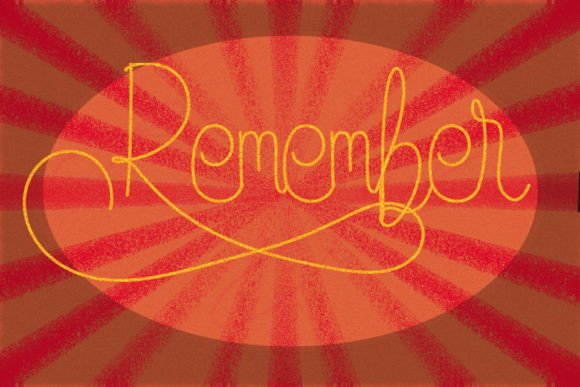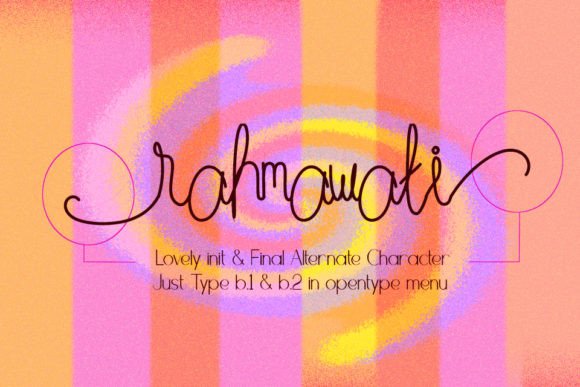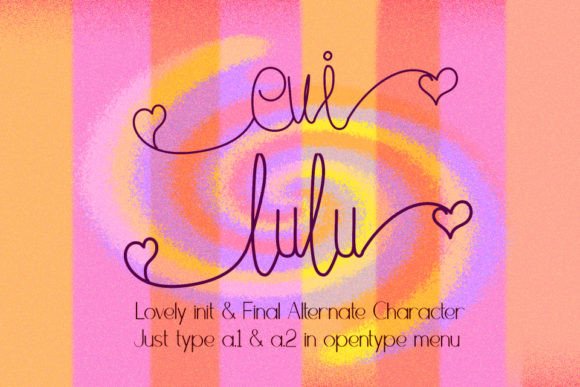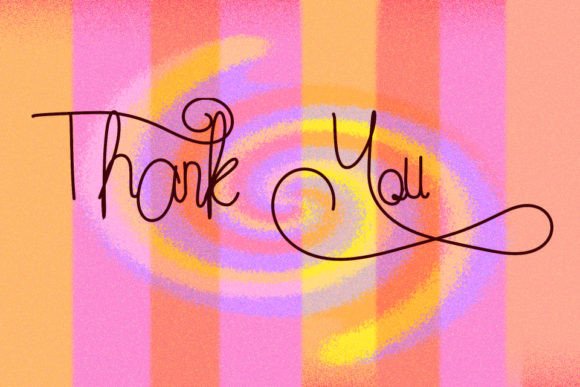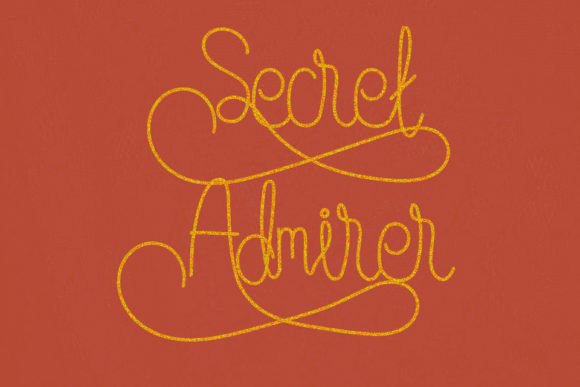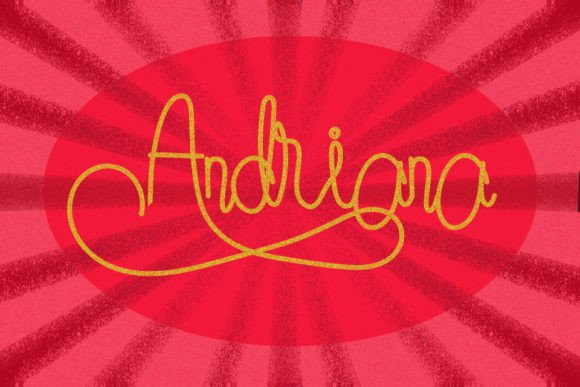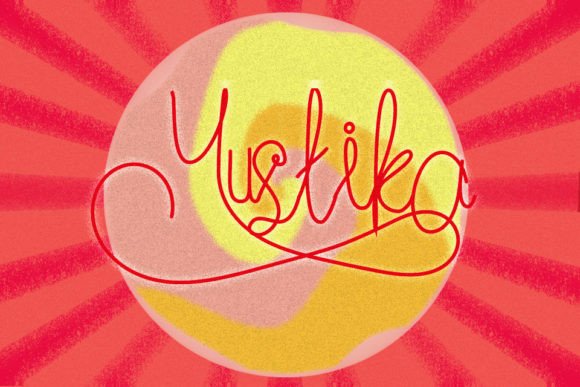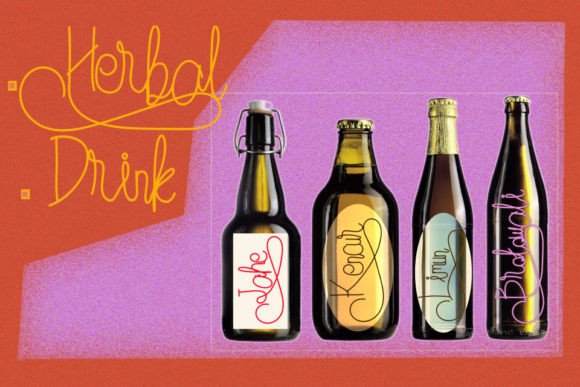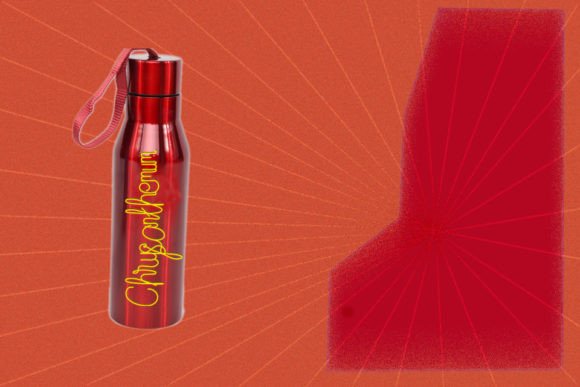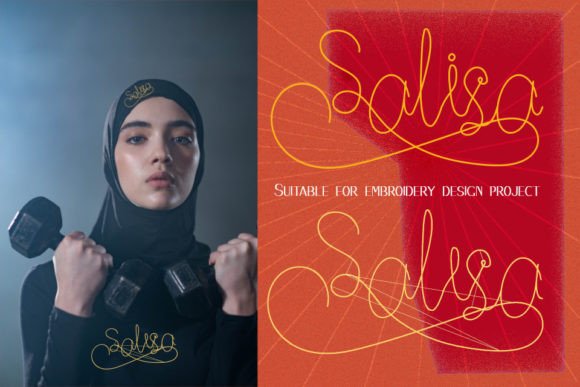
Gold Rose Font
About Gold Rose Font
“Gold Rose” is a delightful and whimsical handwritten script font that adds a playful and quirky touch to your projects. Whether you’re using it for creative crafts, digital design, engaging presentations, or crafting heartfelt greeting cards, this font has the potential to infuse a sense of whimsy and charm into any endeavor.
The charm of “Gold Rose” lies in its ability to bring a sense of lightheartedness and fun to your designs. Its handwritten style exudes creativity and a touch of playfulness, making it a versatile choice for a wide range of creative applications.
This font can be the perfect choice when you want to convey a sense of creativity, imagination, and joy in your projects. Whether you’re designing eye-catching digital graphics, adding a personal touch to presentations, or creating charming and memorable greeting cards, “Gold Rose” is the typeface that can enhance your work and make it more engaging.
Embrace “Gold Rose” with enthusiasm, and you’ll discover how it effortlessly adds a whimsical and fun element to your creative endeavors, making your projects more captivating and memorable, no matter the context or application.